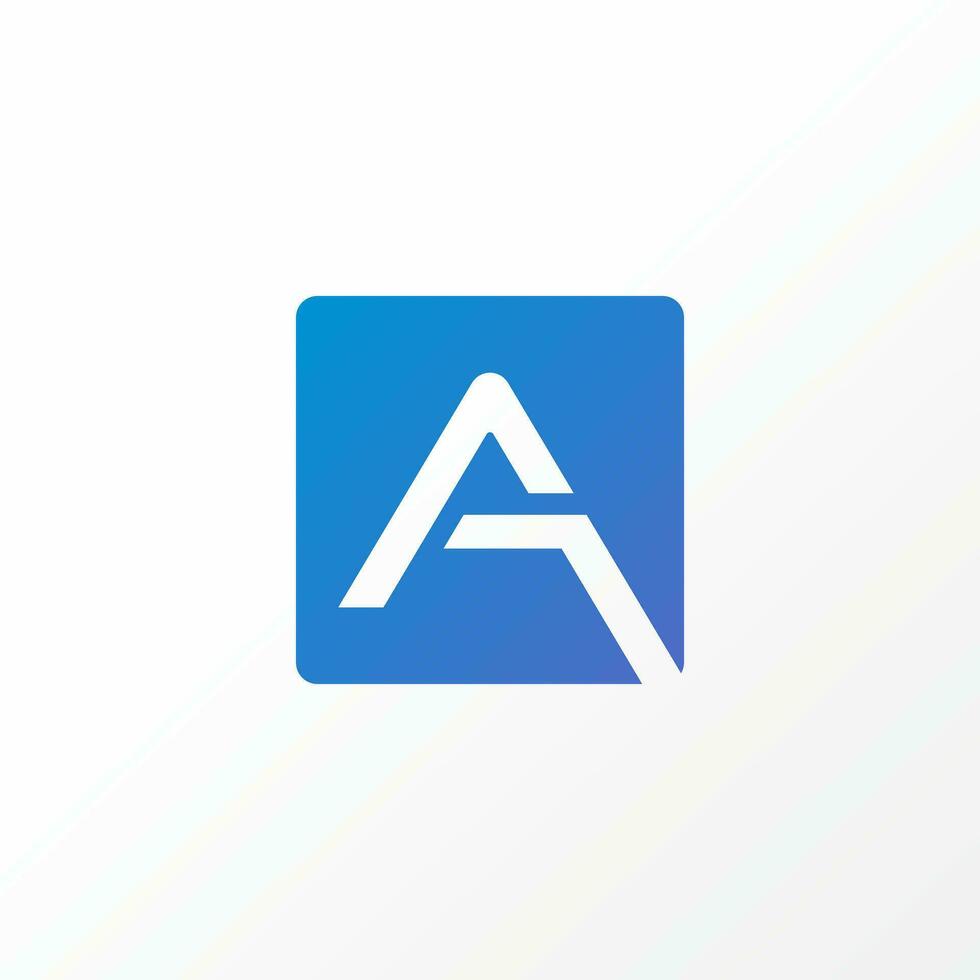
Logo design graphic concept creative abstract premium vector stock sign letter initial A font on cut rectangular block. Related to monogram typography Pro Vector